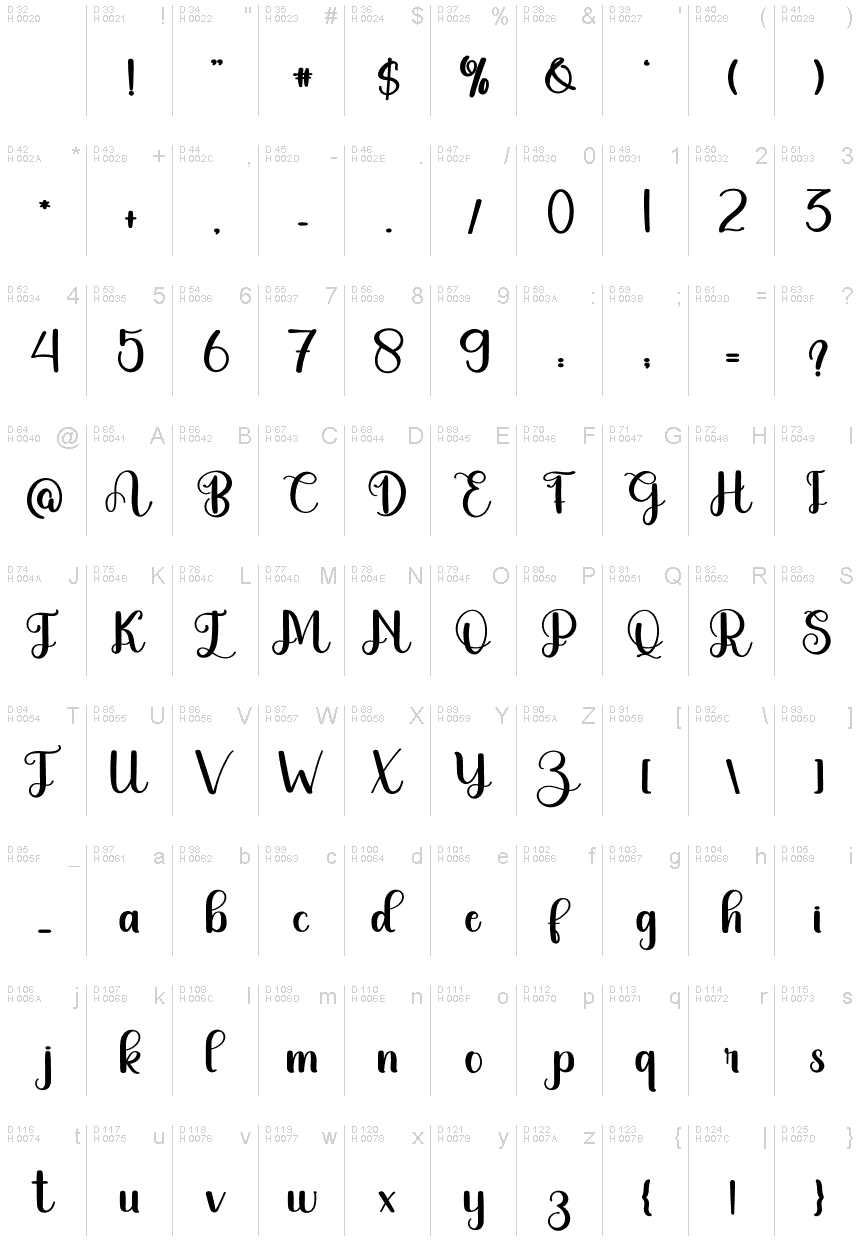
Black Pastel
Black Pastel is a light calligraphy font designed by Inermedia Studio. Perfect for creating elegant and eye-catching projects, Black Pastel adds a creative flair to invitations, book covers, logos and more.